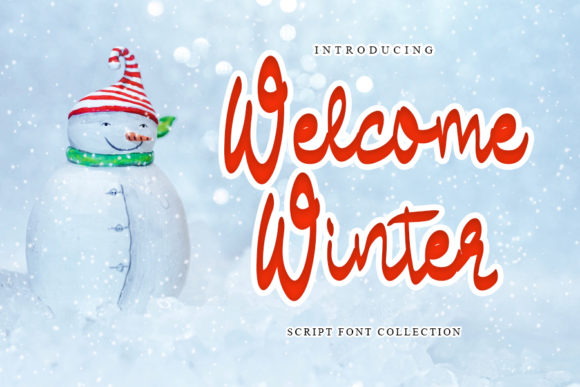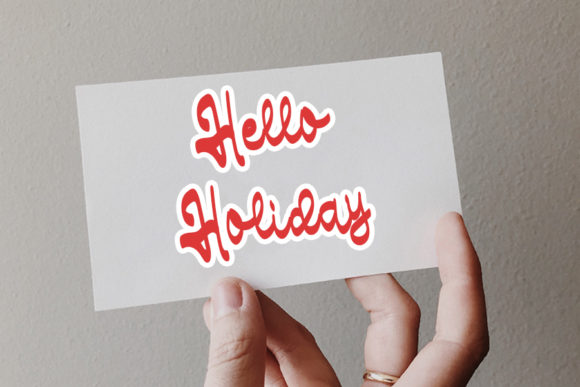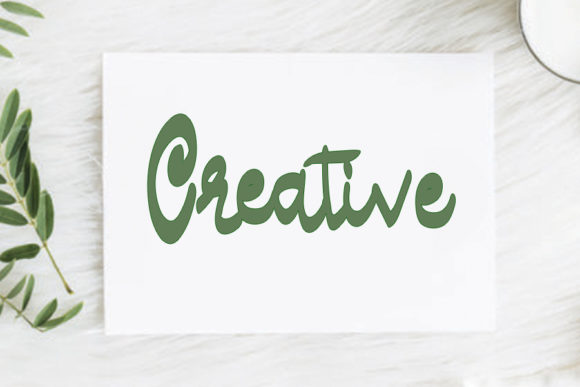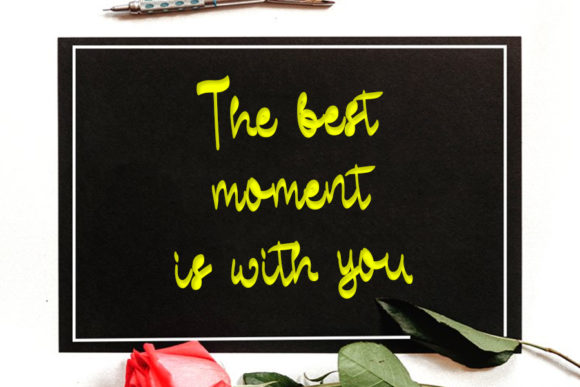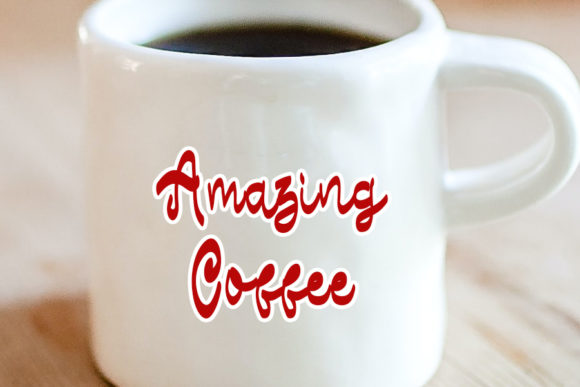
Welcome Winter Font
About Welcome Winter Font
Welcome Winter is a sweet and friendly handwritten font. Its natural and unique style makes it incredibly fitting to a large pool of designs. The only limit is your imagination!